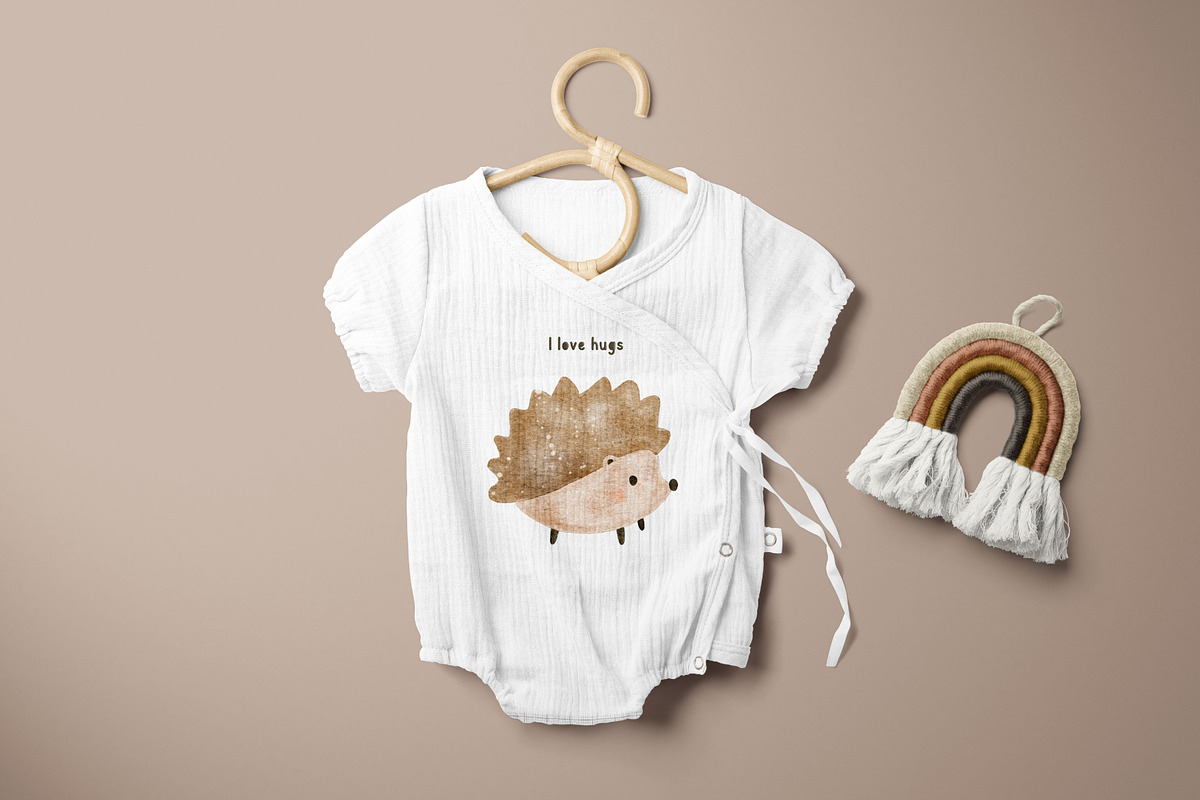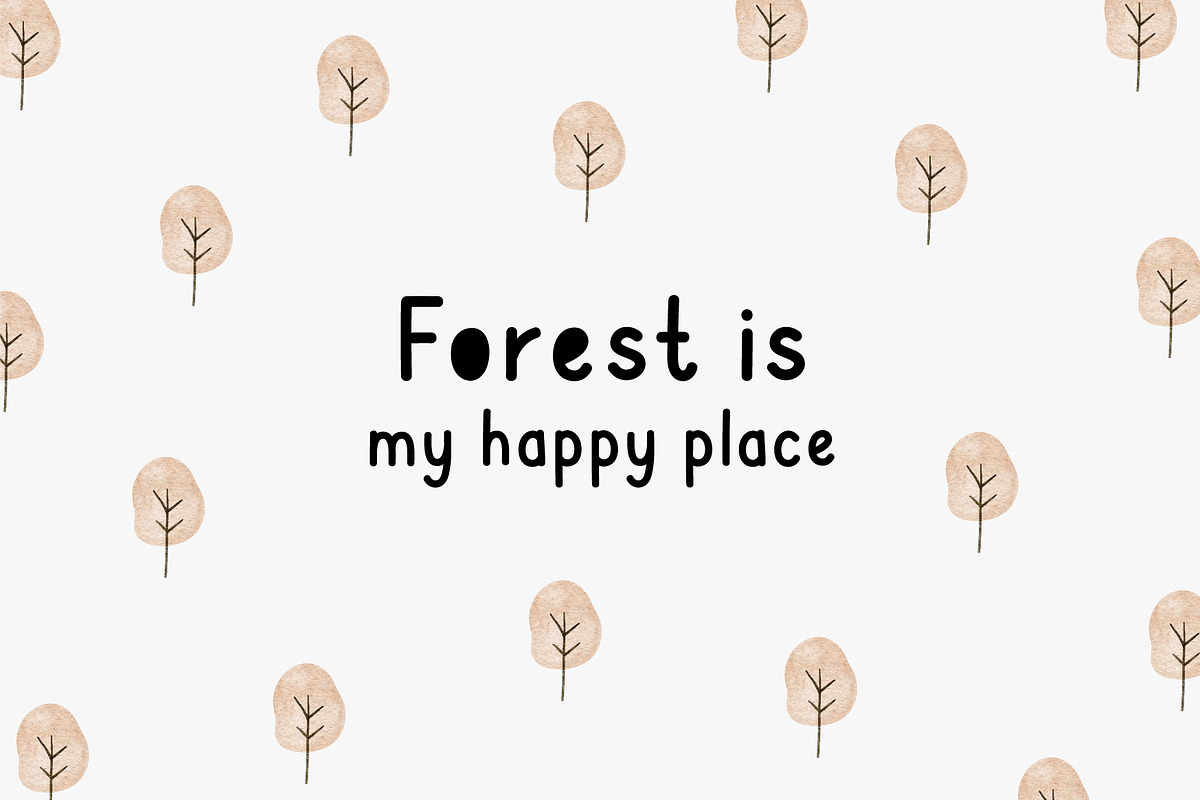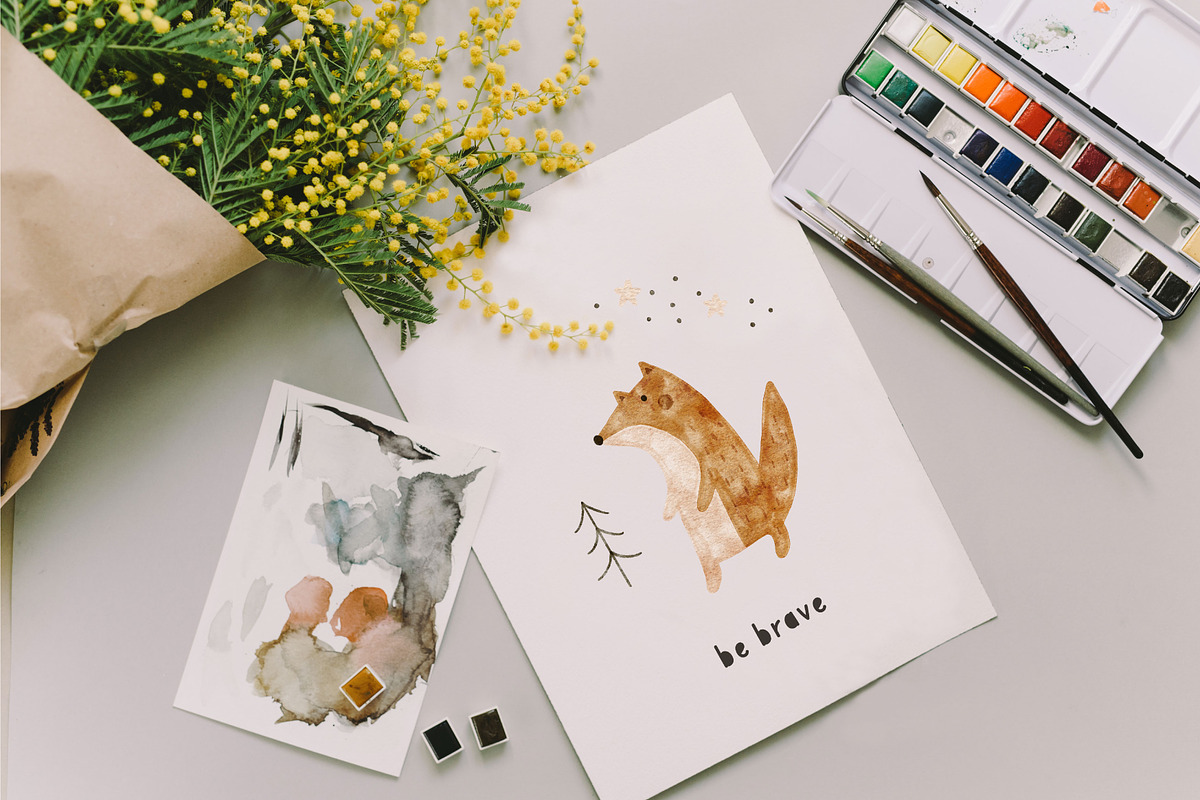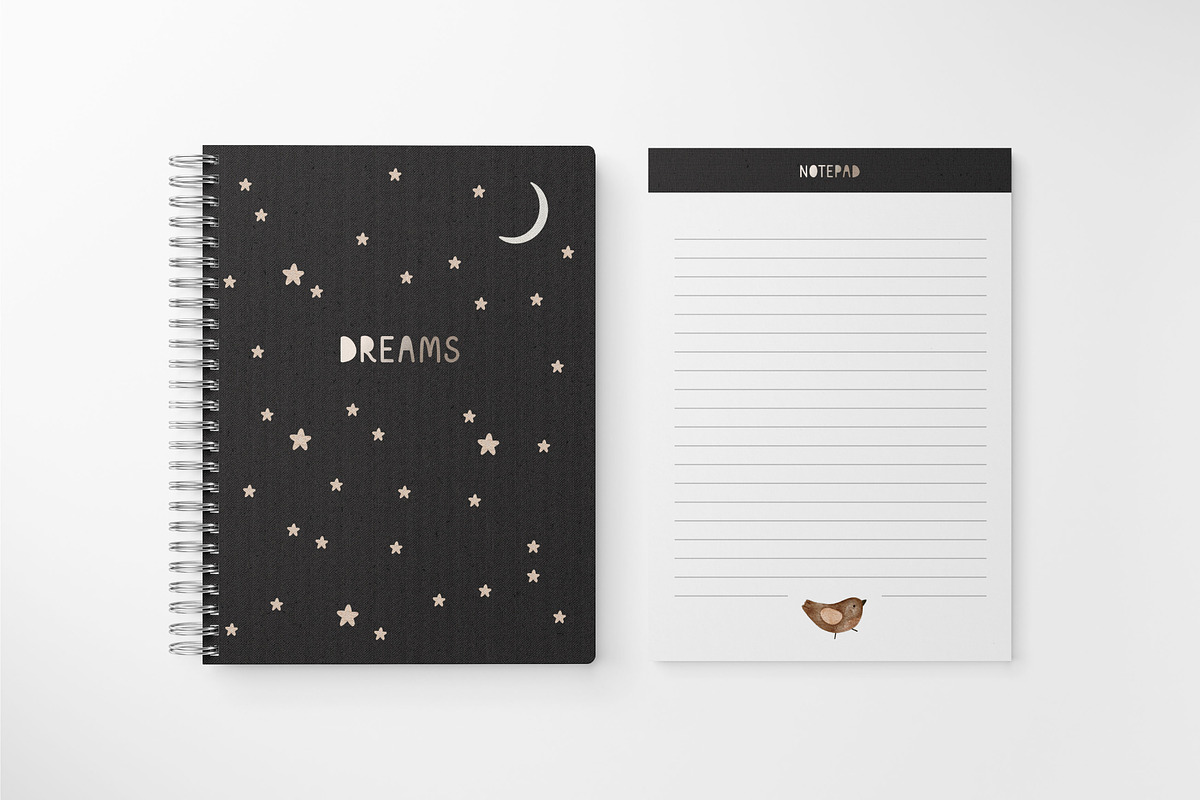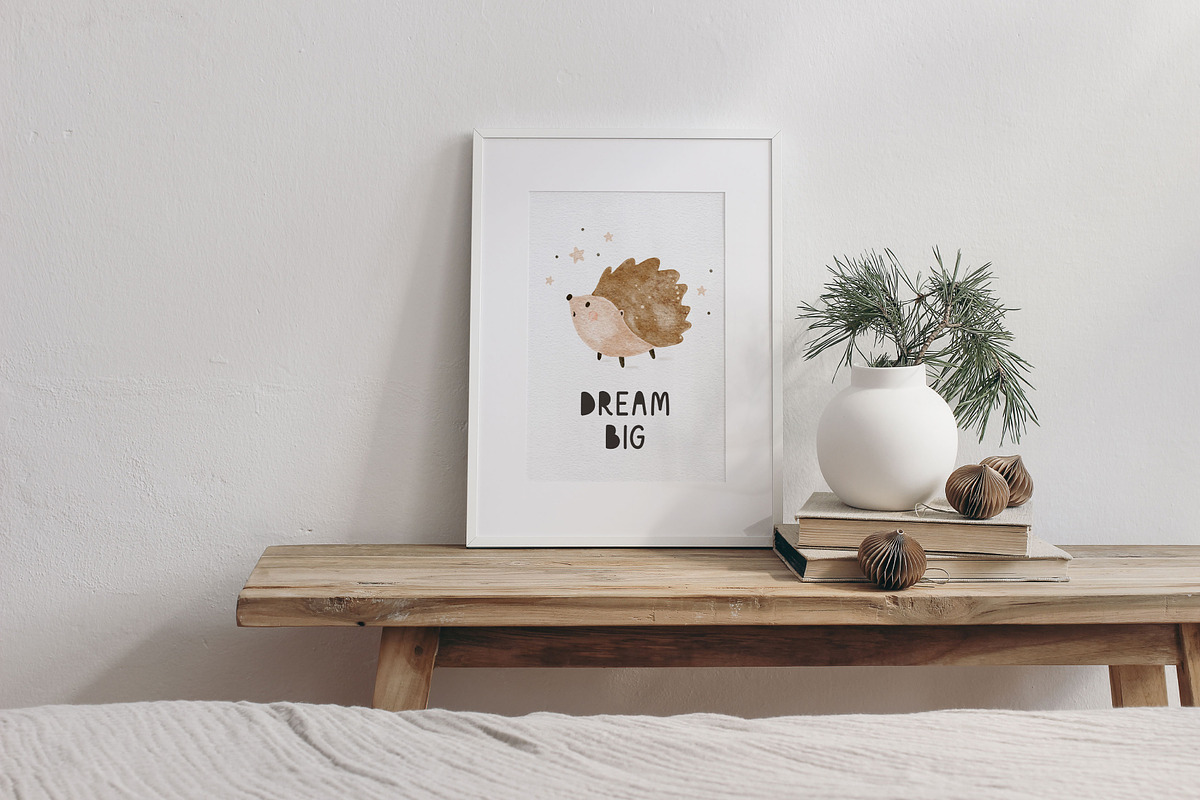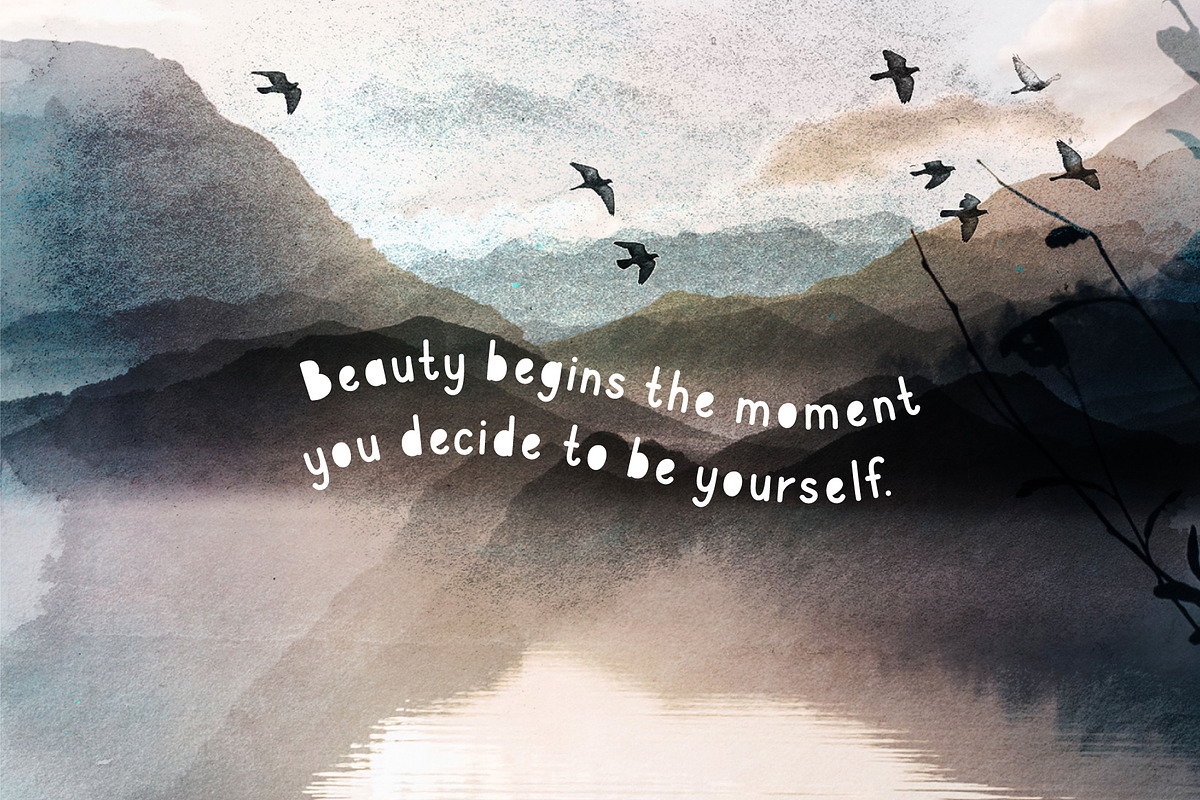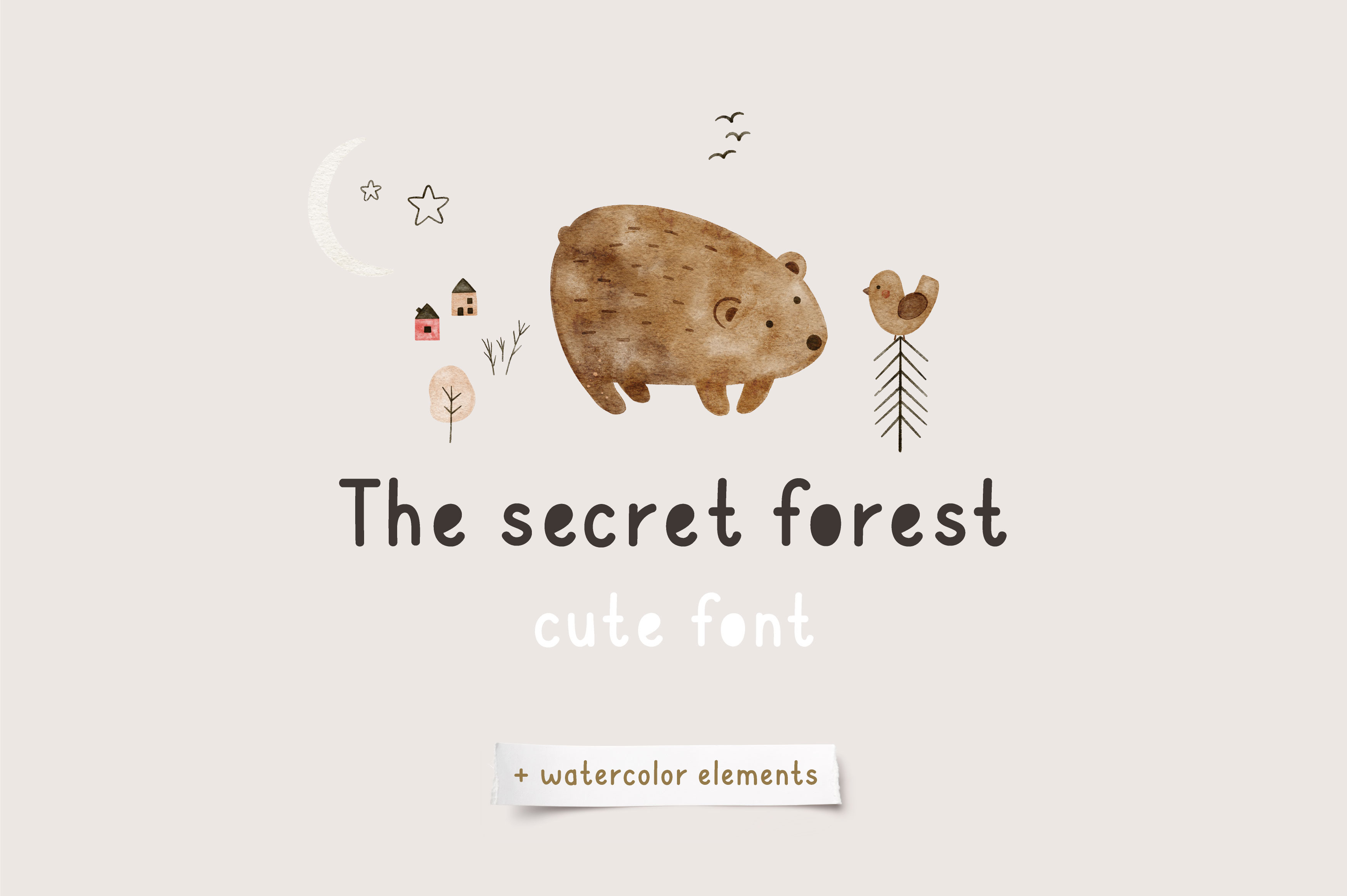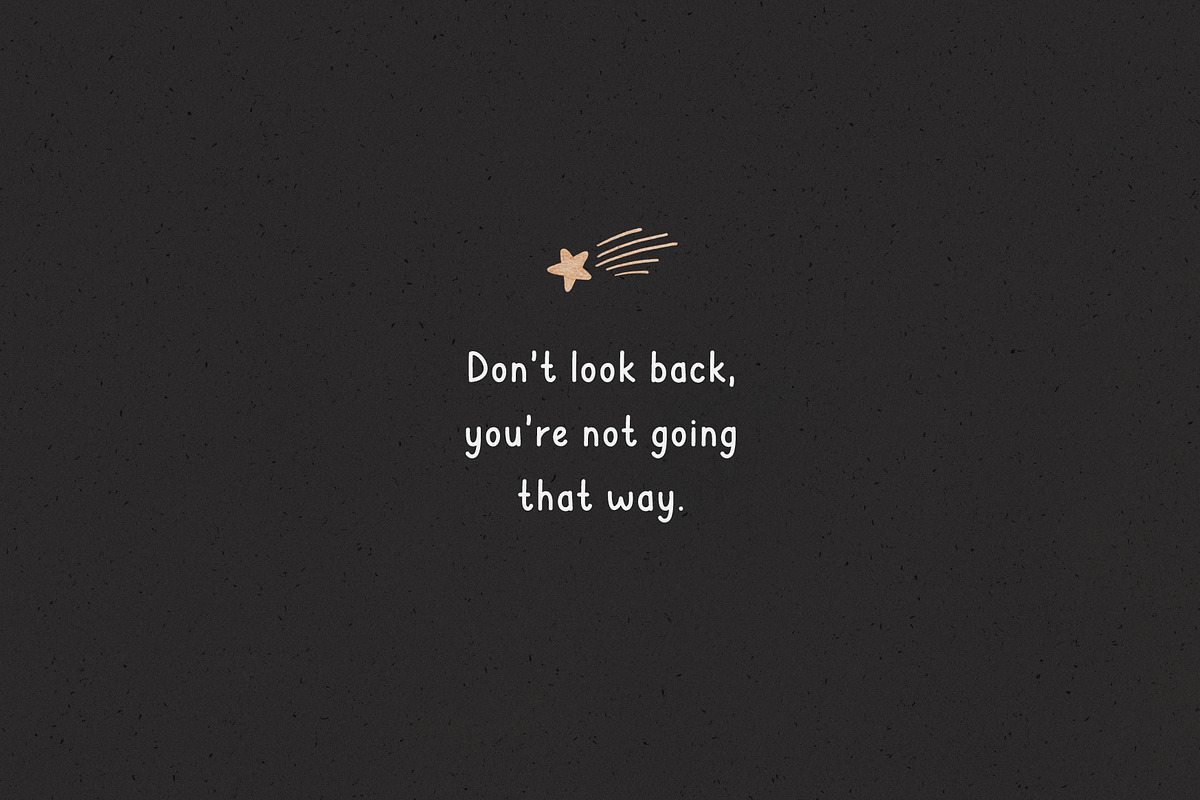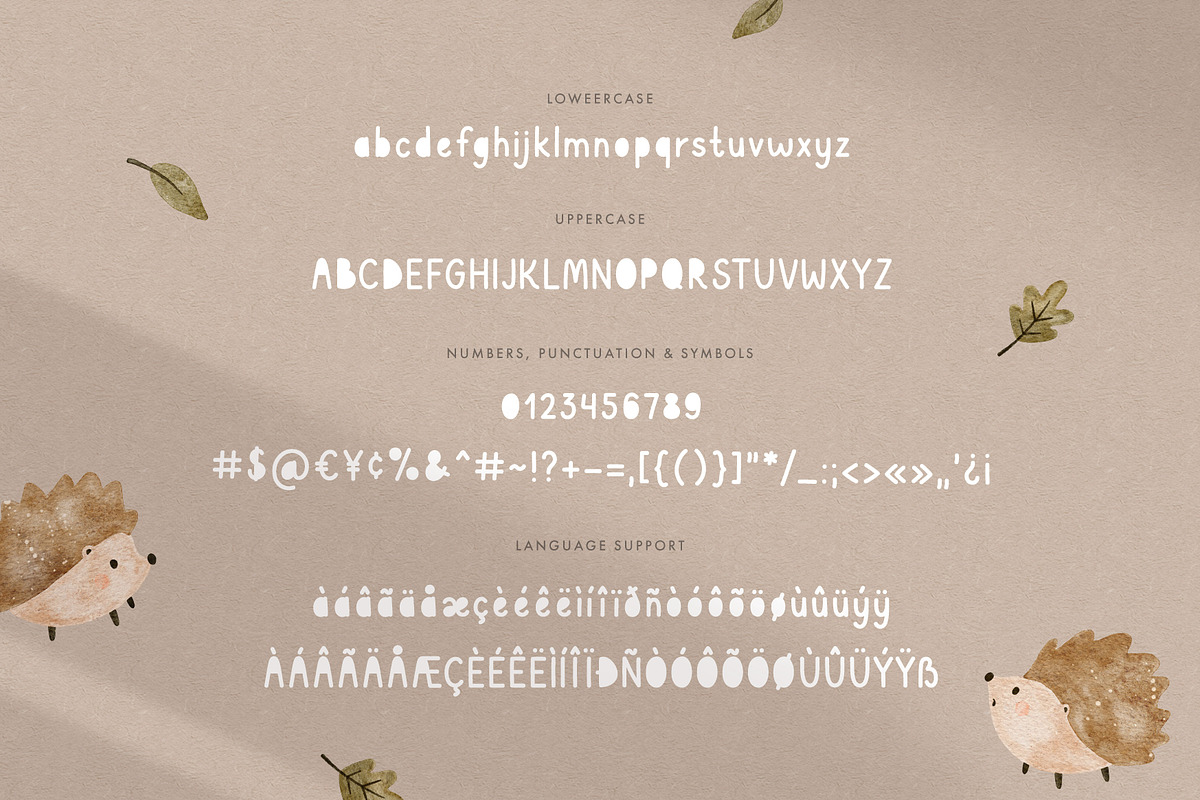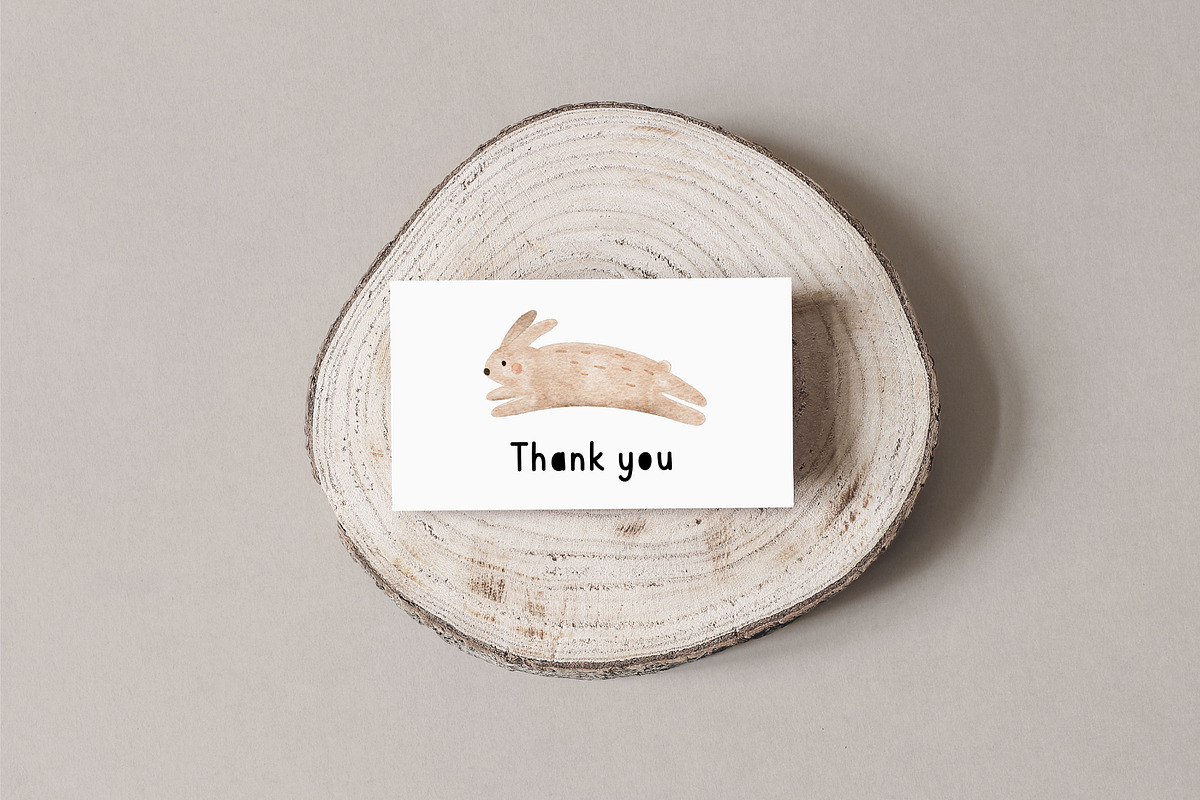
Secret forest | Cute Font
Secret forest - cute handwritten font and watercolor elements, ready to make your design looks great and fun! Use for quotes, greeting cards, baby clothes, nursery wall art, baby shower invites and much more.